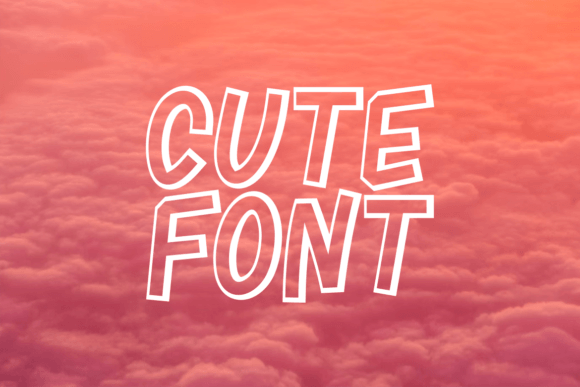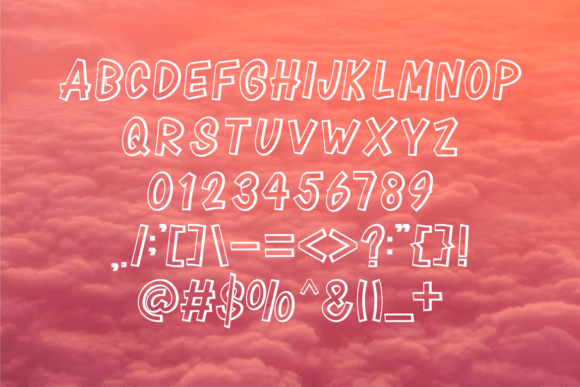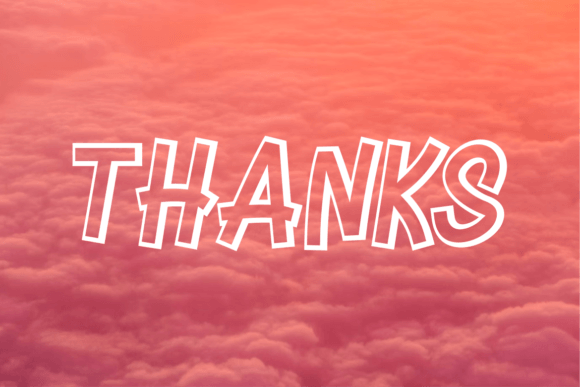
Introducing Cruste Line Font: The Ultimate Choice for Fun and Friendly Designs
Are you looking for a font that can add a touch of joy and playfulness to your designs? Look no further than Cruste Line Font! This fun and friendly display font is perfect for a wide range of creative projects, from cartoon-related designs and children’s games to quotes, titles, brand names, book covers, posters, and more.
What Makes Cruste Line Font So Special?
Cruste Line Font is a unique and eye-catching font that is sure to grab attention. Its fun and friendly design makes it perfect for projects that require a playful and youthful touch. The font features a distinctive outline style that gives it a bold and modern look, making it perfect for use in a variety of creative projects.
Perfect for Cartoon-Related Designs
If you’re working on a cartoon-related design project, Cruste Line Font is an excellent choice. The font’s playful and fun design is reminiscent of classic cartoons, making it perfect for use in animated films, TV shows, comics, and more. You can use it to create eye-catching titles, captions, and dialogue bubbles that will bring your cartoon characters to life.
Great for Children’s Games and Education
Cruste Line Font is also an excellent choice for children’s games and educational materials. The font’s fun and friendly design makes it perfect for use in learning materials, such as worksheets, activity sheets, and educational posters. You can also use it to create engaging and interactive games that will keep kids entertained and educated.
Ideal for Quotes, Titles, and Brand Names
Cruste Line Font is not just limited to cartoon-related designs and children’s games. You can also use it to create eye-catching quotes, titles, and brand names that will grab attention. The font’s bold and modern design makes it perfect for use in a variety of marketing materials, such as posters, flyers, and brochures.
Book Covers and Posters
If you’re an author or designer looking to create a book cover or poster, Cruste Line Font is an excellent choice. The font’s distinctive outline style and bold design make it perfect for use in book covers, posters, and other marketing materials. You can use it to create eye-catching titles and taglines that will grab attention and entice readers.
Tips for Using Cruste Line Font
Here are a few tips for using Cruste Line Font in your designs:
- Use it in large sizes: Cruste Line Font is a display font, so it’s best used in large sizes where its bold and modern design can really shine.
- Pair it with simple fonts: To create visual interest, pair Cruste Line Font with simple fonts that will provide a nice contrast.
- Experiment with colors: Cruste Line Font looks great in a variety of colors, so don’t be afraid to experiment and find the perfect color scheme for your design.
Cruste Line Font is a fun and friendly display font that is perfect for a wide range of creative projects. Its bold and modern design makes it perfect for use in cartoon-related designs, children’s games, quotes, titles, brand names, book covers, posters, and more. With its distinctive outline style and eye-catching design, Cruste Line Font is sure to grab attention and add a touch of joy to your designs.